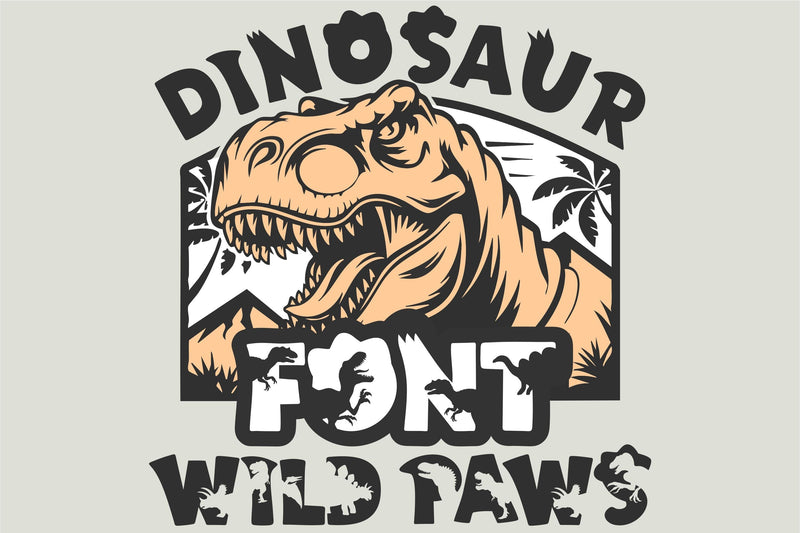
Wild Paws Dinosaur Font - Prehistoric Letters & Dino SVG
Wild Paws Dinosaur Font is a bold prehistoric typeface featuring dinosaur silhouettes inside each letter. Perfect for Cricut, Silhouette, kids' shirts, birthday decorations, adventure books, and crafting projects. Includes uppercase letters, numbers, and symbols. Comes in OTF, TTF, SVG, PNG, EPS, and DXF formats. Compatible with Canva, Photoshop, Illustrator, and Procreate.
With fierce dinosaur silhouettes, rugged edges, and a fun Jurassic feel, this font brings the age of dinosaurs to life! Whether you're creating personalized gifts, classroom projects, or themed apparel, this font will make your designs stomp, chomp, and roar!
✔ BONUS Dinosaur Glyphs & Silhouettes – T-Rex, Velociraptor, Triceratops, Stegosaurus, Pterodactyl, and more!
✔ High-Quality, Prehistoric Design – Fun for kids & adults